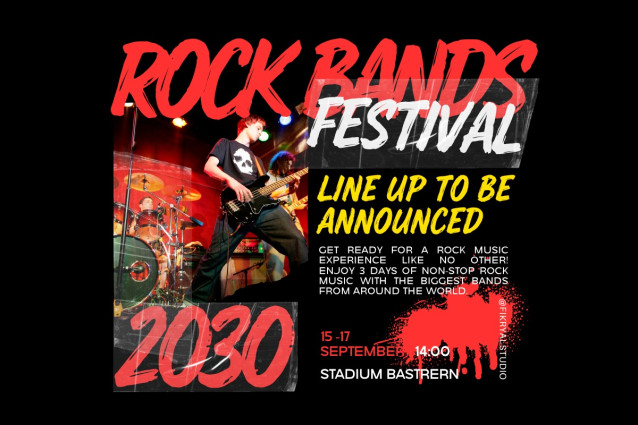
Worthy Youth Font
Worthy Youth Font is a bold, all-caps brush font with raw energy and confident strokes — perfect for designs that demand attention. Crafted with a rebellious spirit and youthful edge, this font delivers a hand-painted aesthetic that’s perfect for posters, streetwear branding, music event flyers, social media graphics, and bold headlines.
The imperfect strokes and dynamic texture give Worthy Youth a wild, expressive feel while maintaining legibility and versatility across various media. Whether you’re designing for urban fashion, edgy campaigns, or creative personal projects, this font speaks loud and clear.